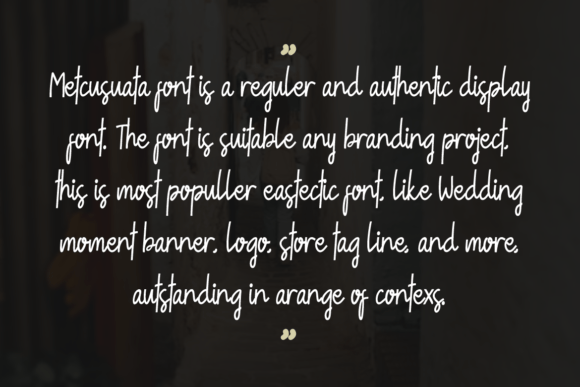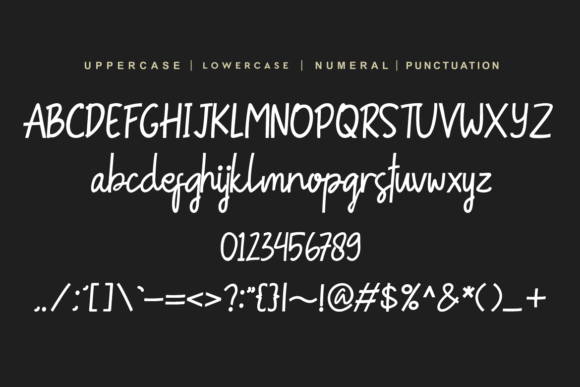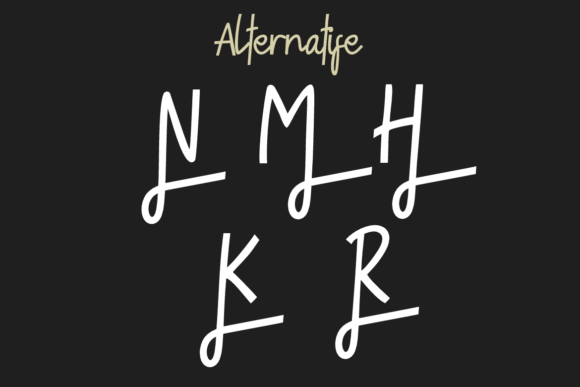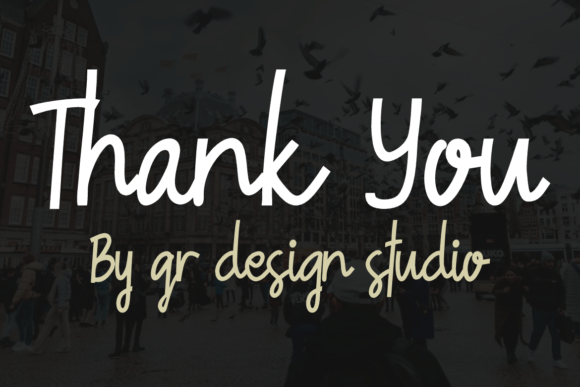
Introduction to Metcusuata Font
Metcusuata is a bold and authentic handwritten display font.
It is suitable for any branding project like logos, weddings, fashion products, greeting cards, and so much more .
Key Features of Metcusuata Font
Why Choose Metcusuata Font?